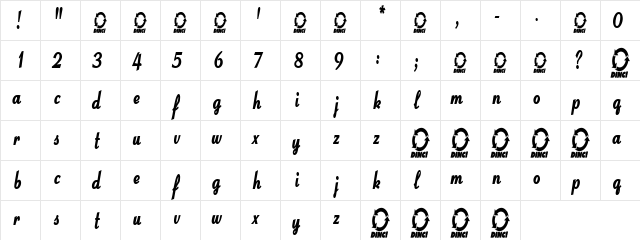
MrsNasty Regular
Design Context for MrsNasty Typeface
MrsNasty takes a measured approach to typography — its balanced proportions and neutral character make it a reliable workhorse for both digital and print work.